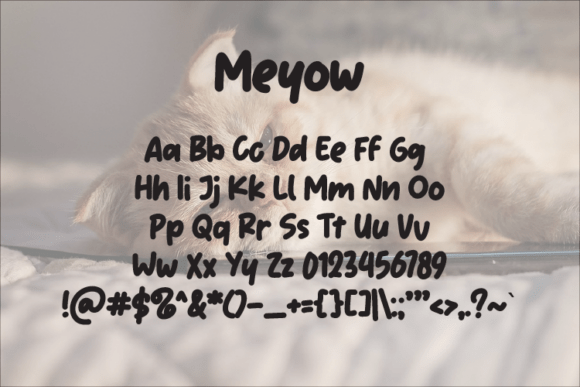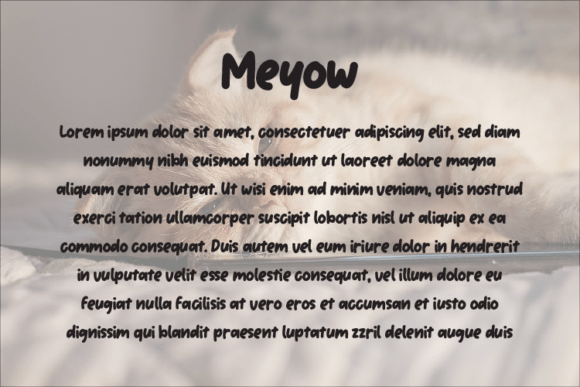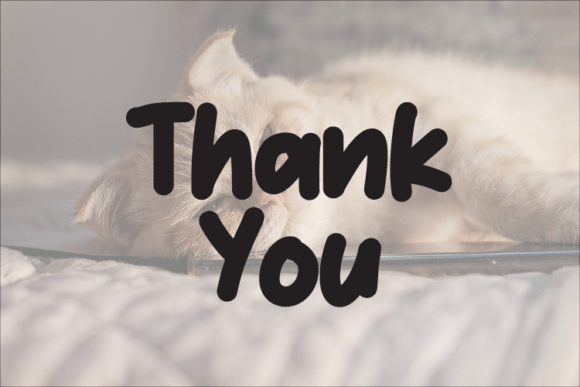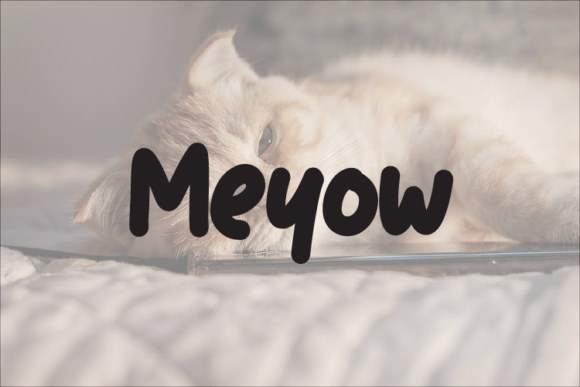
Introduction to Meyow Font
Meticulously crafted to stand out, Meyow is a sleek, modern typeface with an elegance that conveys the perfect blend of sophistication and readability.
Geared for versatility, it thrives across various media, promising crisp and clear messaging With its .
Why Choose Meyow Font?
Meyow Font offers exceptional quality and versatility, making it a valuable addition to your design toolkit. Whether you’re creating for personal projects or commercial use, Meyow Font delivers professional results.